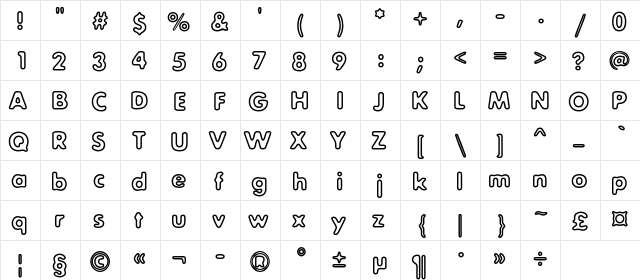
ExposureOutlineC Regular Font Preview
ExposureOutlineC Regular
Design Context for ExposureOutlineC Typeface
ExposureOutlineC brings ornamental detail and strong personality to headlines and identities, where visual impact matters more than quiet functionality.
Font Pairing: Pair with a clean neutral sans-serif for body copy to let ExposureOutlineC's character lead without overwhelming the composition.
Pro Tip: Use ExposureOutlineC exclusively at display sizes — it was designed to be seen, not read at length. Let a neutral companion handle body copy.